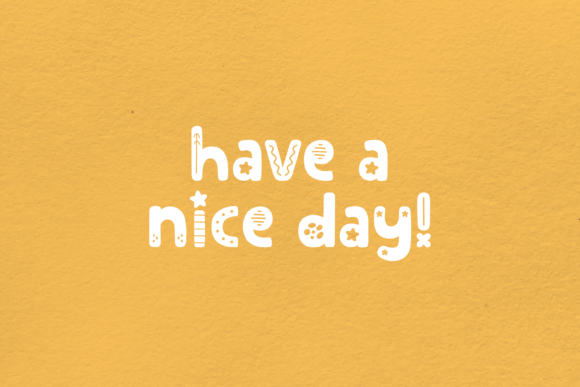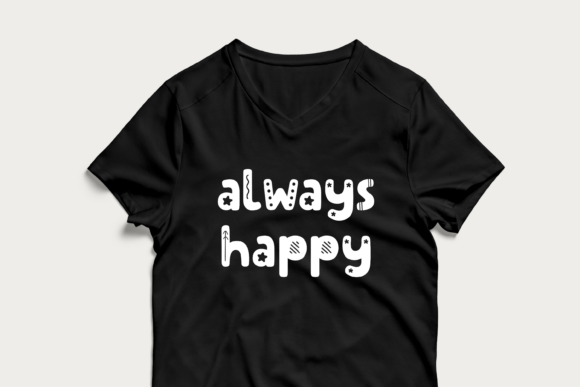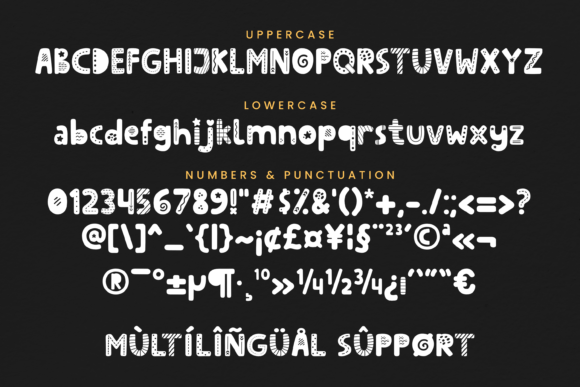
Introduction to Funtasy Font
Funtasy is a cheerful decorative font designed to brighten up your creations.
With its vibrant appeal, Funtasy brings a playful yet elegant touch to posters, enhances the charm of printed quotes, and infuses digital designs with an unforgettable personality Ideal for any projects seeking a distinctive and joyful tone, Funtasy lets your creativity bloom in a fun and unique way.